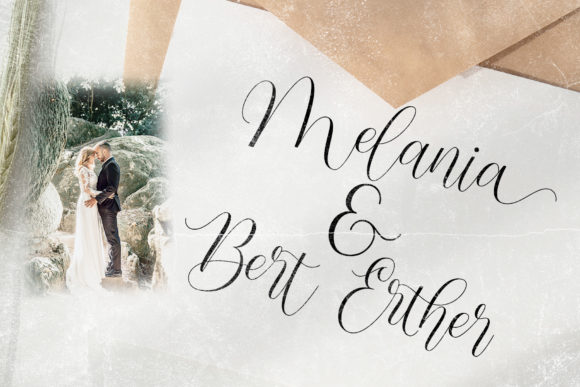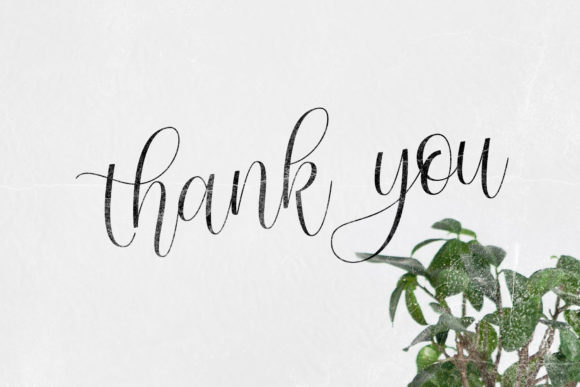
The Designer’s Delight: Barbara Blast Font
I’ll never forget the time I was working on a branding project for a fashion boutique, and I just couldn’t find the right font to capture the essence of the brand. The client wanted something bold, yet elegant, with a touch of whimsy. That’s when I stumbled upon the Barbara Blast font, and it was love at first sight! 💕
With its stunning, bold handwritten style and unique twist, Barbara Blast quickly became my go-to font for a wide range of design projects. In this article, I’ll share my honest review of the font, provide a practical guide on how to use it, and explore similar fonts that you might enjoy.
The Good: ✨
- ✅ Unique and bold design: Barbara Blast is a true showstopper, with its confident swashes and elegant lines.
- ✅ Highly versatile: This font can be used for a wide range of projects, from fashion branding to wedding invitations and more.
- ✅ Easy to read: Despite its bold design, Barbara Blast is surprisingly easy to read, even in smaller sizes.
The Not-So-Good: 🤔
- ⚠️ Limited use in body text: While Barbara Blast is perfect for headlines and titles, it may not be the best choice for longer body text.
- ⚠️ Some swashes may not work well in smaller sizes: Be mindful of the swashes and flourishes, as they may become too ornate or difficult to read in smaller sizes.
The Story Behind Barbara Blast
Barbara Blast was designed by [designer’s name], a talented typographer with a passion for creating unique and beautiful fonts. Inspired by vintage typography and modern calligraphy, Barbara Blast is a true masterpiece that showcases the designer’s skill and creativity.
| Font Name | Barbara Blast Font |
| Author | RochArt |
Q: What makes Barbara Blast so special?
A: Barbara Blast is special because of its unique blend of boldness and elegance, making it perfect for a wide range of design projects.